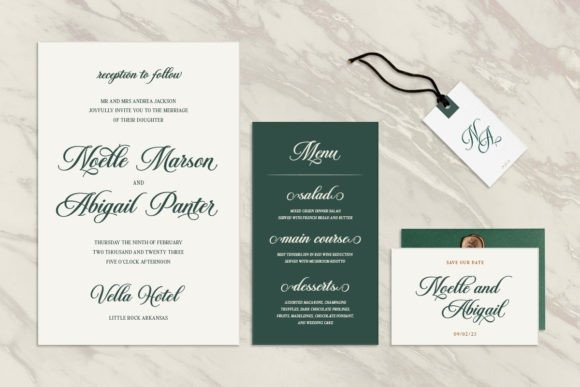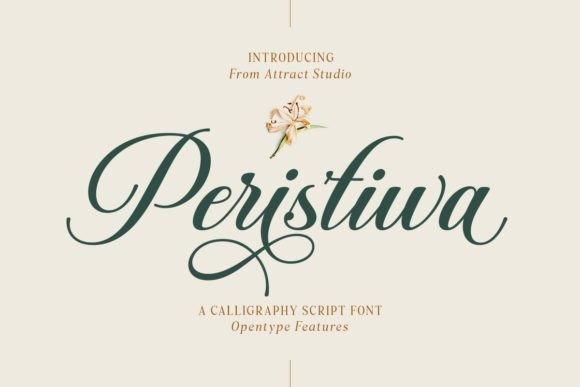
Peristiwa Font
Peristiwa Font is an elegant, full-featured vintage-inspired calligraphic script font with lots of alternative characters. Whatever the topic, this font will be a wonderful asset to your font library, as it has the potential to enhance any creation. Peristiwa is PUA encoded which means you can access all the glyphs and alternates with ease!